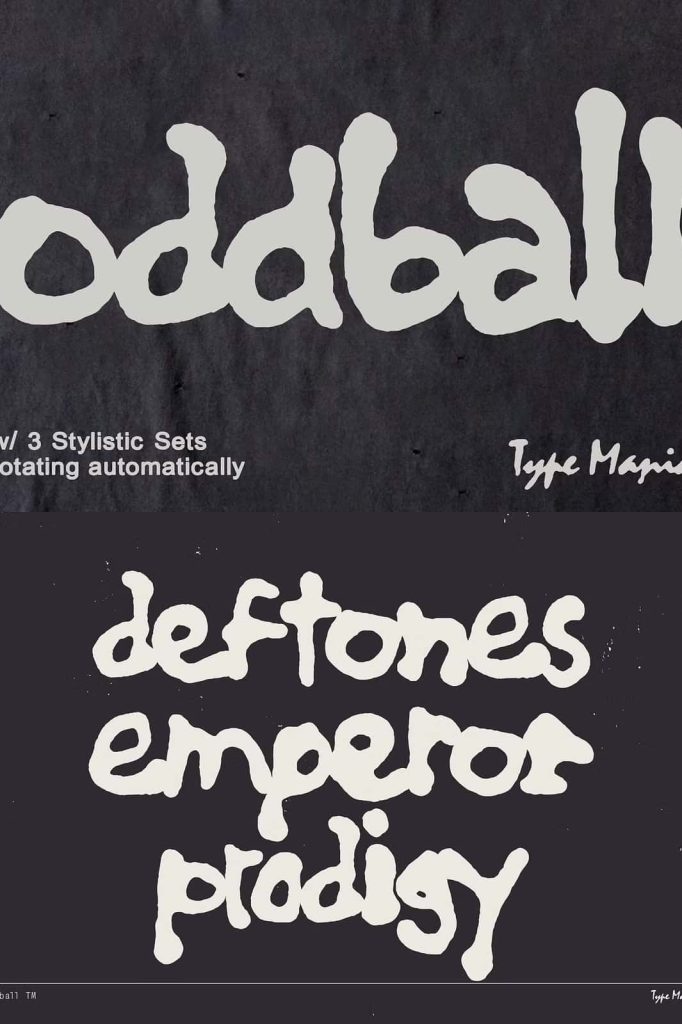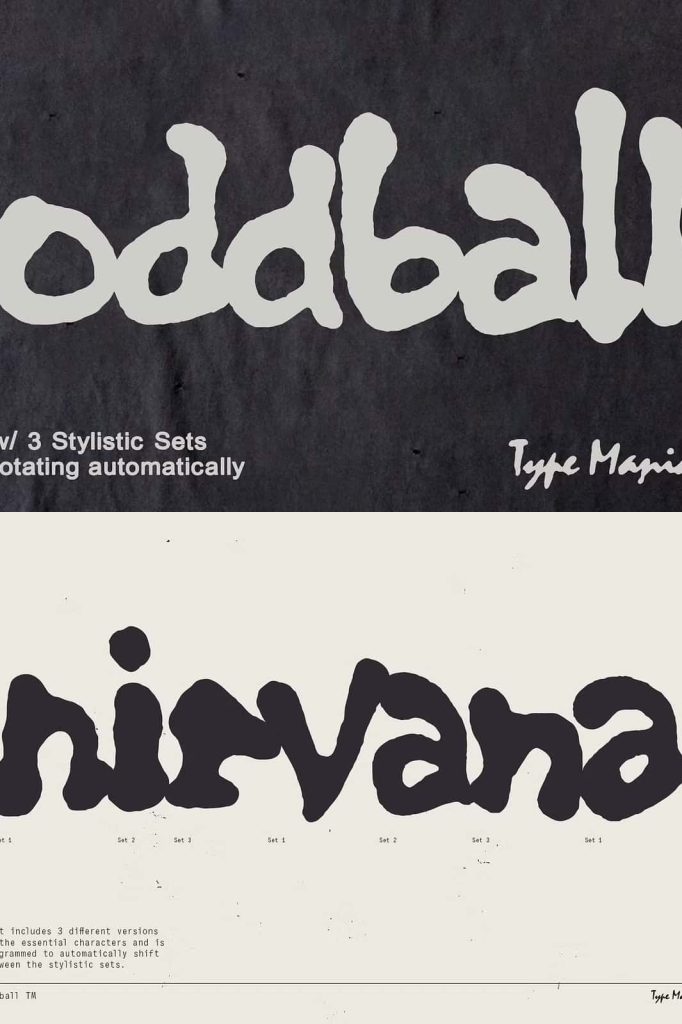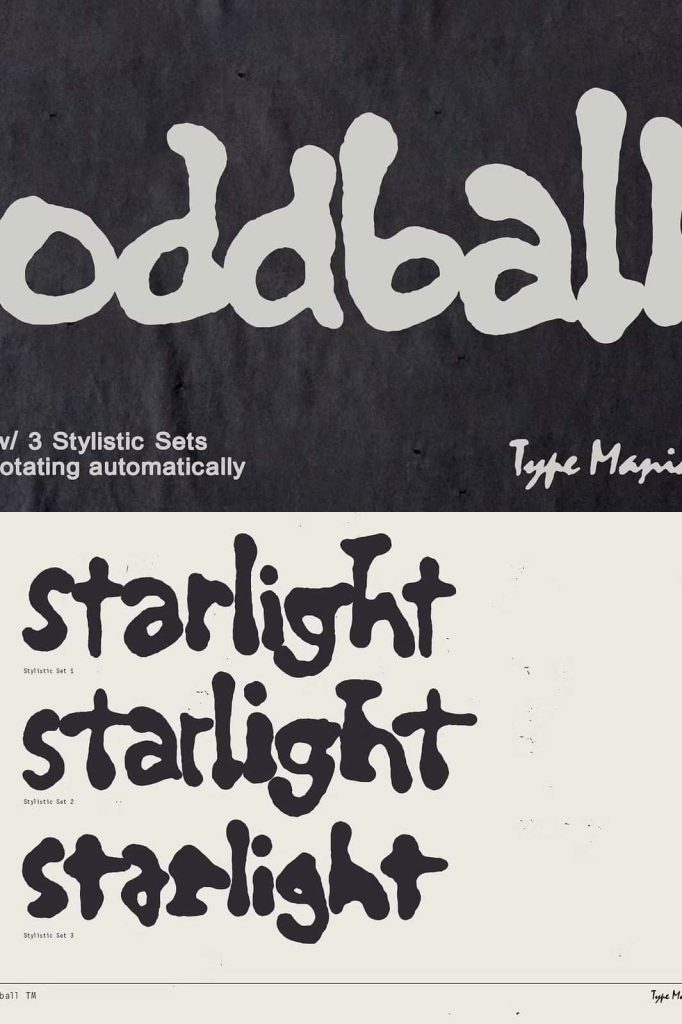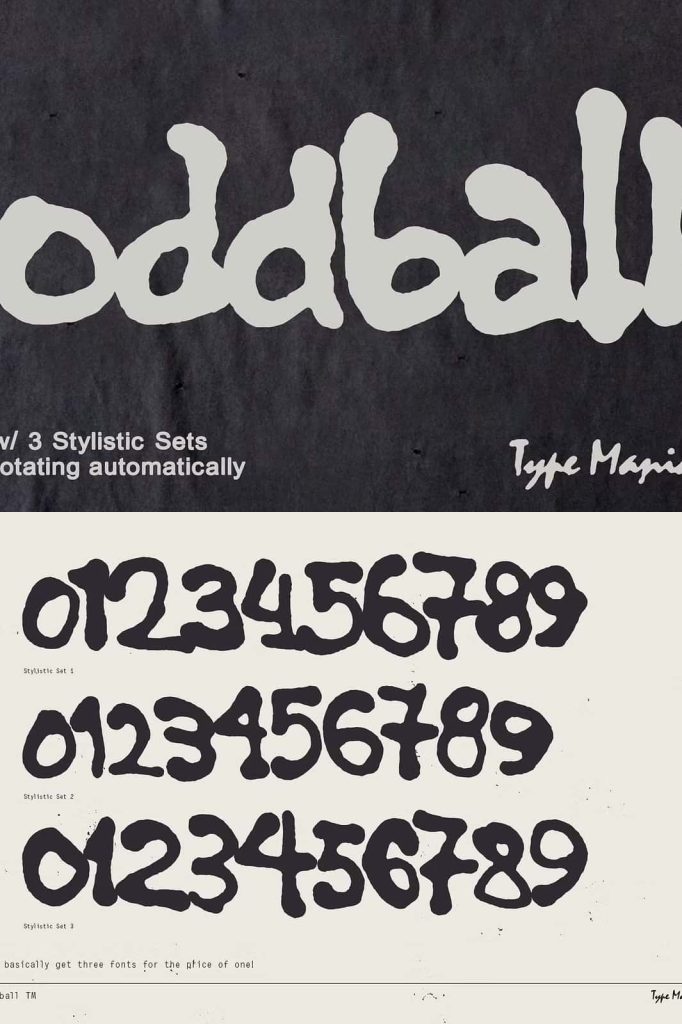
Oddball TM – 90s Vibes HardleastedJanuary 28, 2025Fonts Check out Oddball TM, the blob-y handwritten font delivering hard on the 90s vibes. Perfectly imperfect Download